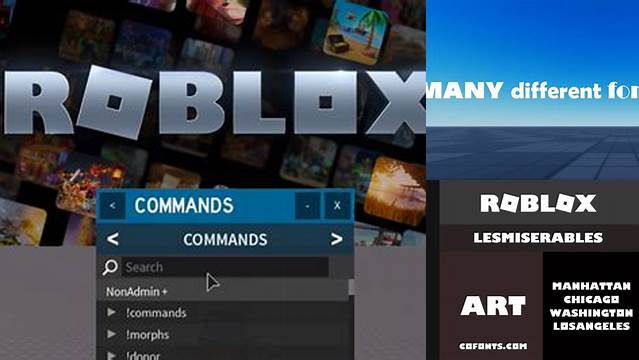
Roblox Fonts: A Complete Guide
Hey guys! Ever wondered about the fonts Roblox uses? As a player, have you ever seen a font and thought, "Wow, I'd love to use that!" Or, if you're a creator, are you curious about which fonts are at your disposal to make your game stand out? Well, you're in the right place! This guide is going to dive deep into all fonts Roblox uses, giving you the lowdown on everything from the default options to some of the hidden gems. We'll explore where these fonts are used, how to access them, and even how you can use them to level up your game development or personal projects. So, buckle up, because we're about to take a font-tastic journey through the world of Roblox!
The Essential Roblox Fonts: Your Go-To Typography Toolkit
Okay, let's start with the basics. What are the essential fonts Roblox uses? These are the fonts you'll encounter most frequently throughout the platform, in the user interface, and often within games themselves. Knowing these fonts is crucial, as they represent the core aesthetic of Roblox and provide a consistent visual language across the platform. It's like knowing the alphabet before you start writing a novel – you gotta know the fundamentals first! The main fonts that are consistently used are the following:
- UI (User Interface) Fonts: The default UI font used across the Roblox platform is typically a clean, sans-serif font. This font is designed to be easily readable and is used for everything from menus and buttons to chat bubbles and in-game text. Over the years, it has changed, but it's generally a modern and friendly-looking font, perfect for a platform aimed at a broad audience.
- Game Text Fonts: Developers have a wide array of fonts at their disposal when creating games. Roblox provides a selection of built-in fonts that can be easily accessed and applied to text labels, buttons, and other UI elements. These fonts offer a range of styles, from simple and straightforward to more playful and stylized options. We'll dive into more details about how to access and use these fonts in the coming sections. The selection is usually not as vast as what you could get with custom font uploads, but these built-in options are optimized for performance within the Roblox environment.
Understanding these core fonts is the first step in mastering the typography on Roblox. They set the tone and establish a baseline for your visual communication within the game. By using these default fonts, you ensure that your game aligns with the overall aesthetic of the platform, making it feel familiar and accessible to all players. Think of it this way – these fonts are the building blocks of the visual language in Roblox, and learning how to use them effectively is key to creating a polished and professional-looking game. Being aware of these fonts will help you to immediately identify the style you want.
So, whether you're a new player looking to understand the UI or a seasoned developer looking to build the best user experience possible, start with these essentials. Knowing them is the cornerstone of a solid visual experience in Roblox. Keep in mind that there are also fonts that developers can upload themselves. That's why these fonts are essential.
Accessing and Utilizing Roblox's Built-In Fonts: A Developer's Guide
Alright, now that we've covered the basics of the essential fonts, let's get into the nitty-gritty of how developers can actually use these fonts in their games. Accessing and utilizing Roblox's built-in fonts is super easy, but it does require a little bit of know-how with the Roblox Studio environment. We're going to break down the process step by step, so you can start incorporating these fonts into your game right away.
- Creating or Selecting a Text Object: Inside Roblox Studio, you'll be working with text objects. These are the elements that display text within your game, such as text labels, buttons, or even chat bubbles. You can create a new text object by inserting a
TextLabelorTextButtoninto your game'sScreenGuior directly into aPartorModel. - Font Property: Once you have your text object, you'll need to locate the
Fontproperty in the object's properties window. This is where the magic happens! Clicking on theFontproperty will reveal a dropdown menu with a selection of built-in fonts. - Selecting Your Font: In the dropdown menu, you'll find a list of various fonts that Roblox provides. The exact selection may vary, but you'll typically see a range of options, like
Arial,Source Sans Pro,Gotham Semibold,Fredoka One,Patrick Hand,Luckiest Guyand many more. Simply click on the font you want to use, and it will be applied to your text object. - Customization: Once you've selected your font, you can further customize its appearance by adjusting other properties, such as
TextSize,TextColor3,TextStrokeColor3, andTextScaled. This allows you to fine-tune the font's size, color, and style to match the overall aesthetic of your game.
By following these steps, you can easily integrate Roblox's built-in fonts into your game. These fonts provide a great starting point for creating visually appealing text elements that will capture the attention of your players. Plus, using built-in fonts is a great way to optimize your game, as they're designed to work efficiently within the Roblox environment. So go out there, experiment with the font options, and let your creativity run wild!